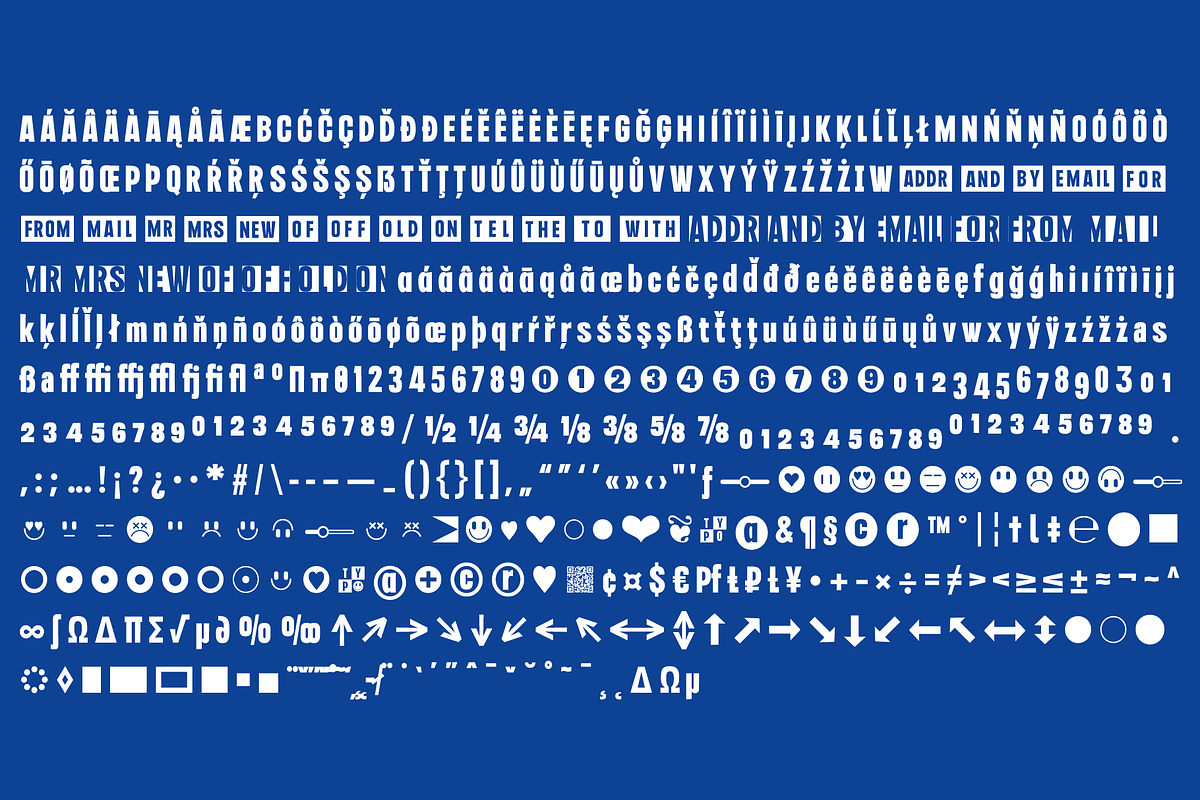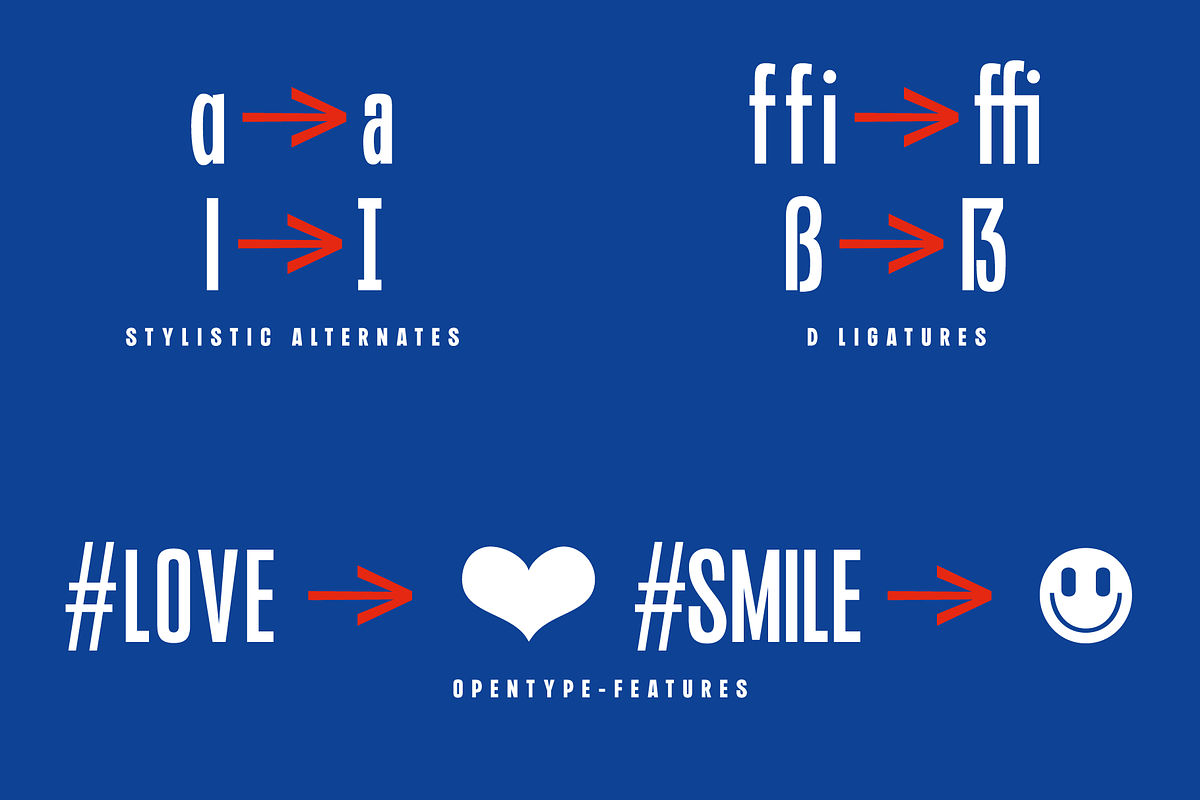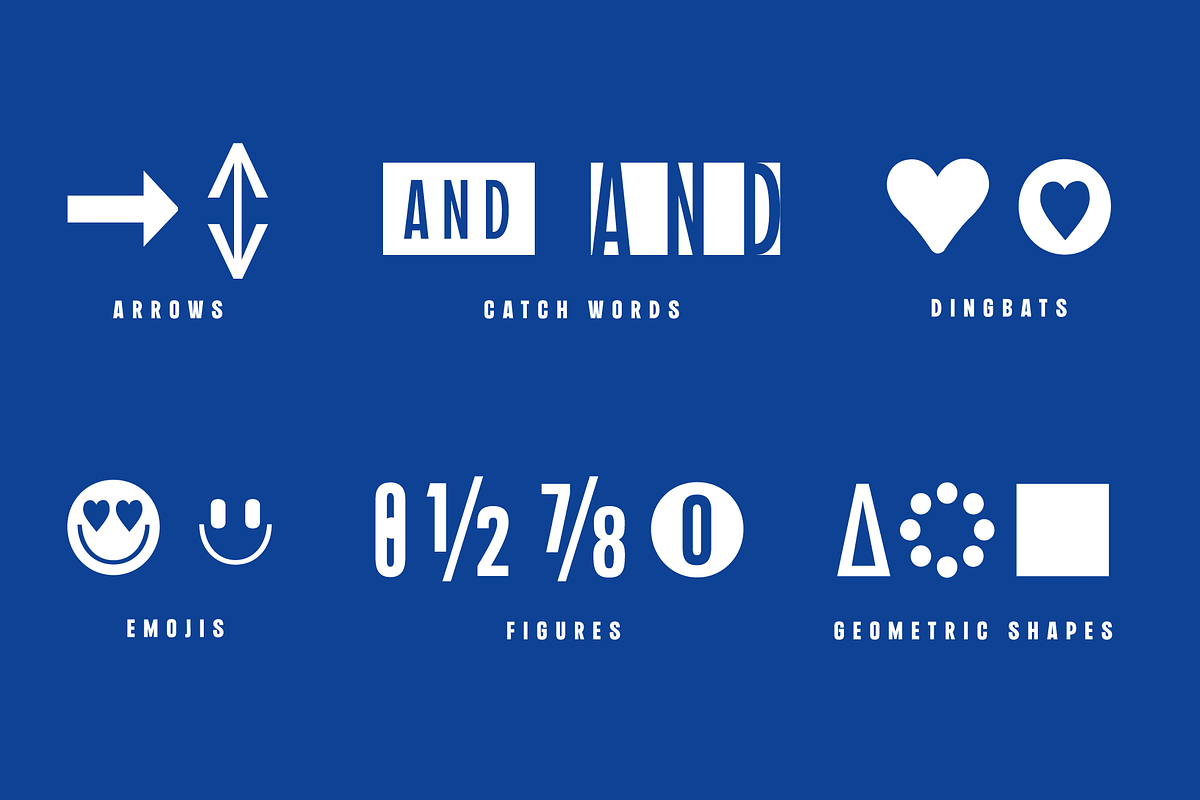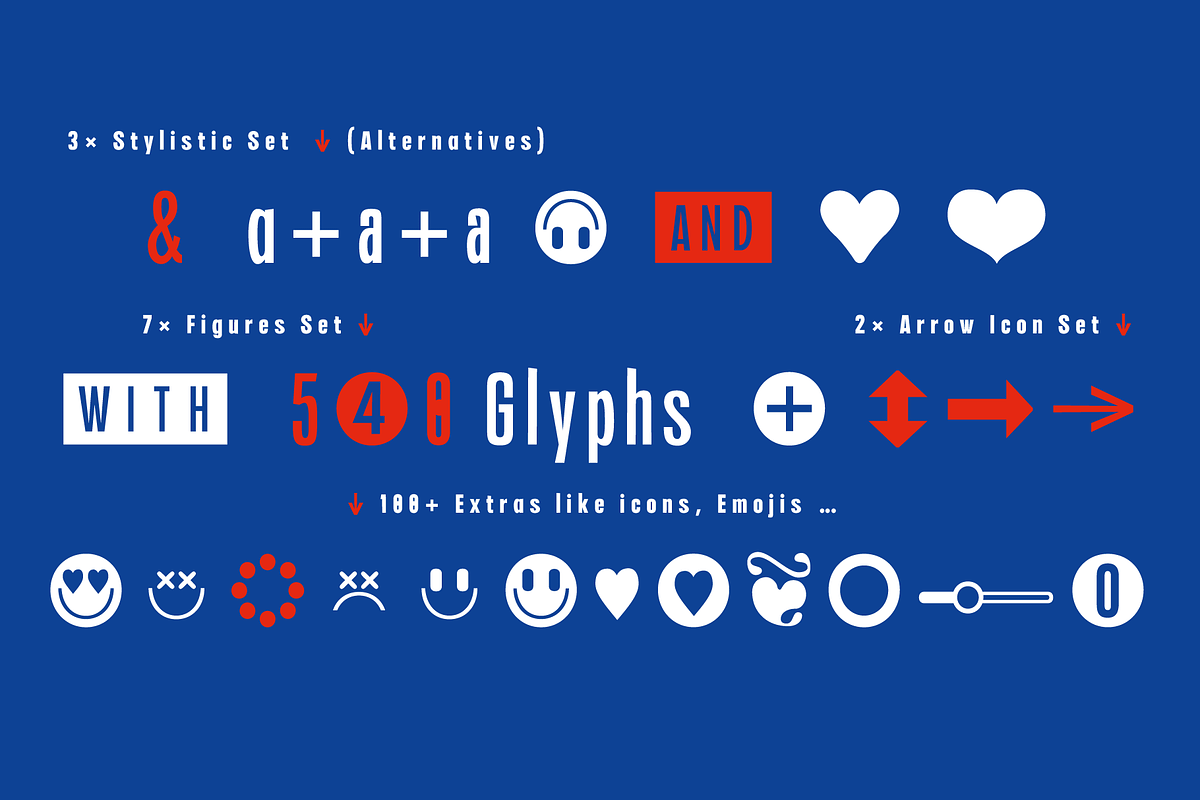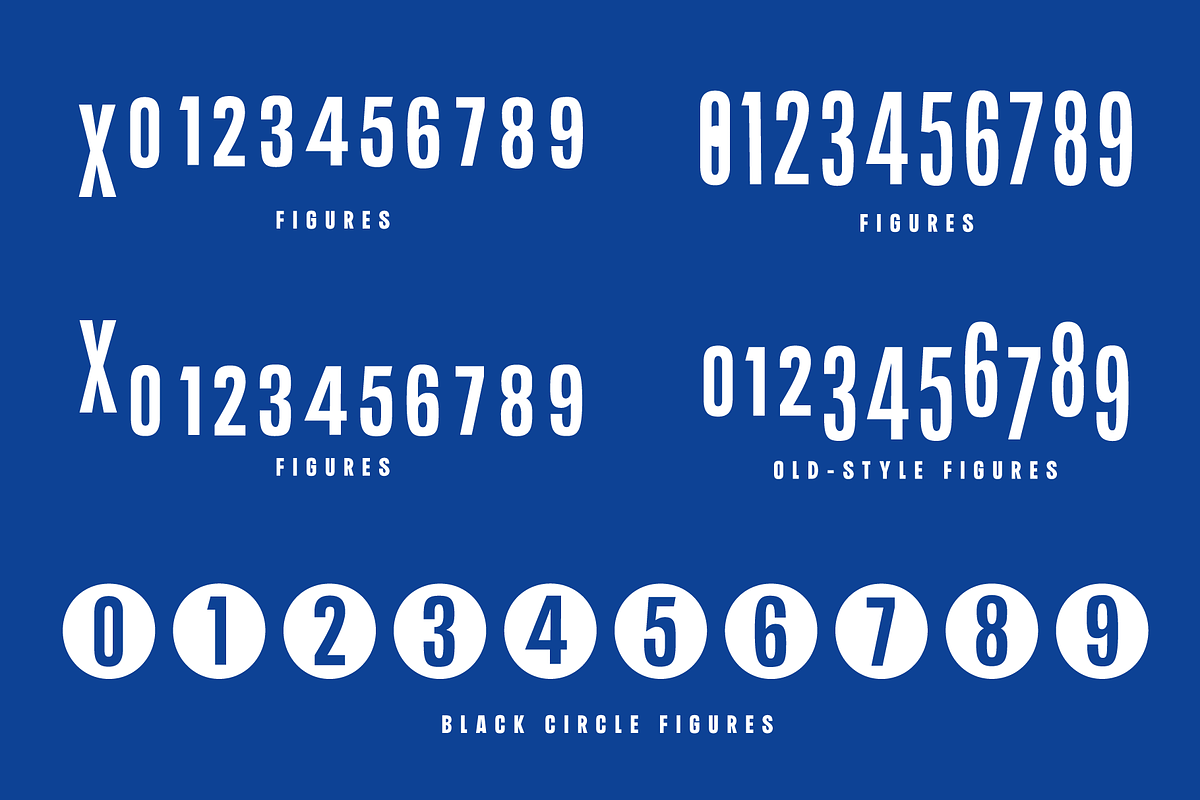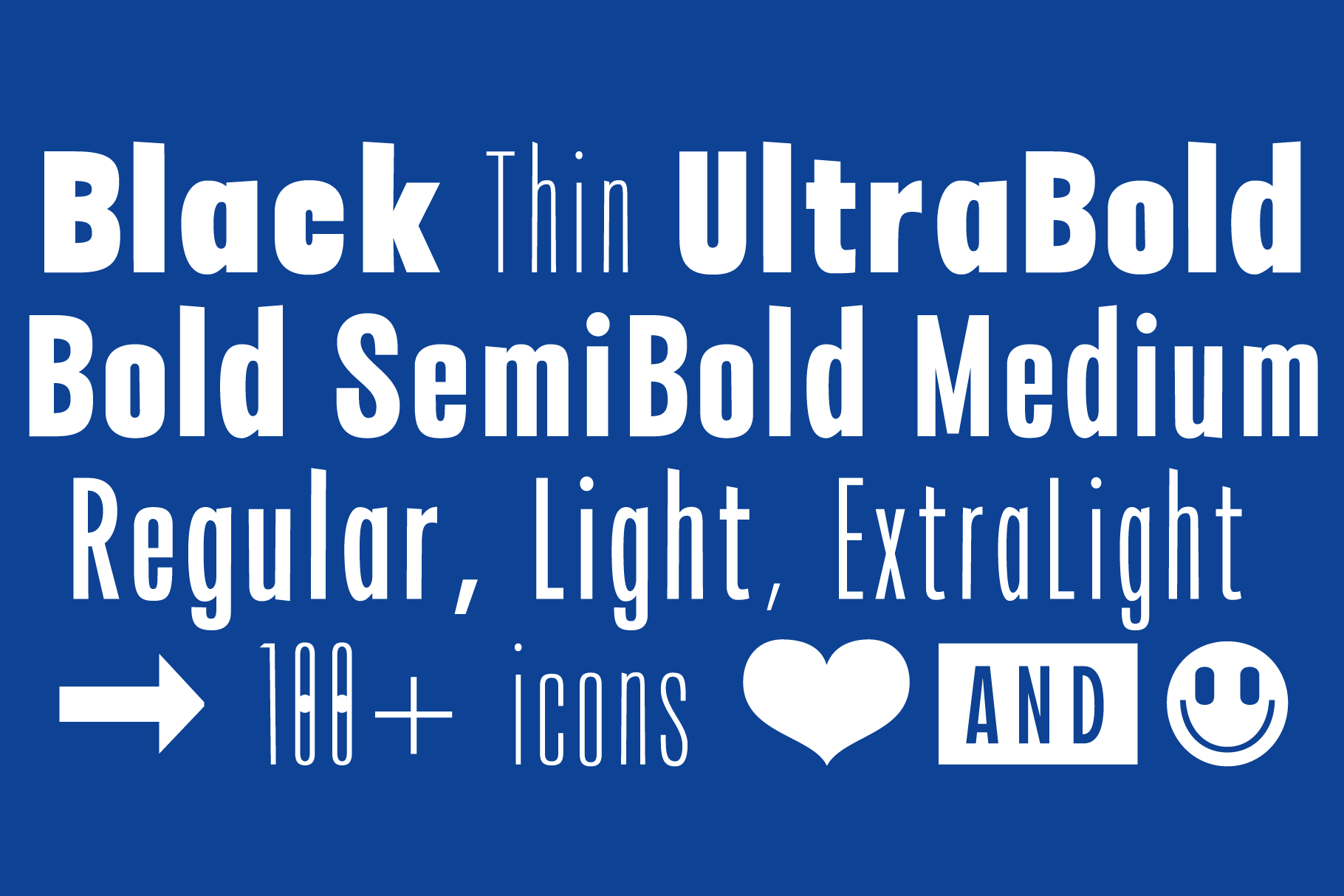
FONT | Headline Poster | Display Typ
The variable Sans Serif typeface Headline Poster is designed from 2023 for the font foundry Typo Graphic Design by Manuel Viergutz.
The display font based on old original wood letter. The font started from 80 wood letters (analog) and was finally digitalize and extended to 500+ glyphs Revival to Tribute the 1920/1930 in 2023 (digital).
9 font-styles (Black, UltraBold, Bold, SemiBold, Medium, Regular, Light, ExtraLight, Thin + 1 icon-style with 540 glyphs (Adobe Latin 3) incl. 100+ decorative extras like icons, arrows, catch words, dingbats, emojis, symbols, geometric shapes (type the word #LOVE for ❤ or #SMILE for ☺ as OpenType-Feature dlig) and stylistic alternates (3 stylistic sets).
For use in logos, magazines, posters, advertisement plus as webfont for decorative headlines. The font works best for display size.